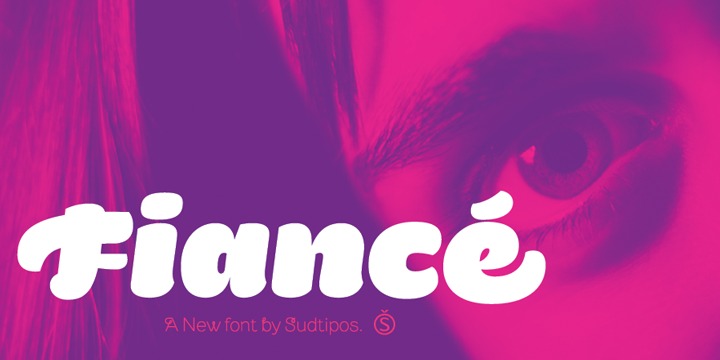
Fiancé is a new extra bold sans italic font with a lot of lovely alternate glyphs to play with. Specially developed for packaging, logotype & poster design projects. Photos by Sergio Recabarren
Designed by Miguel Hernández. Engineered by Alejandro Paul.